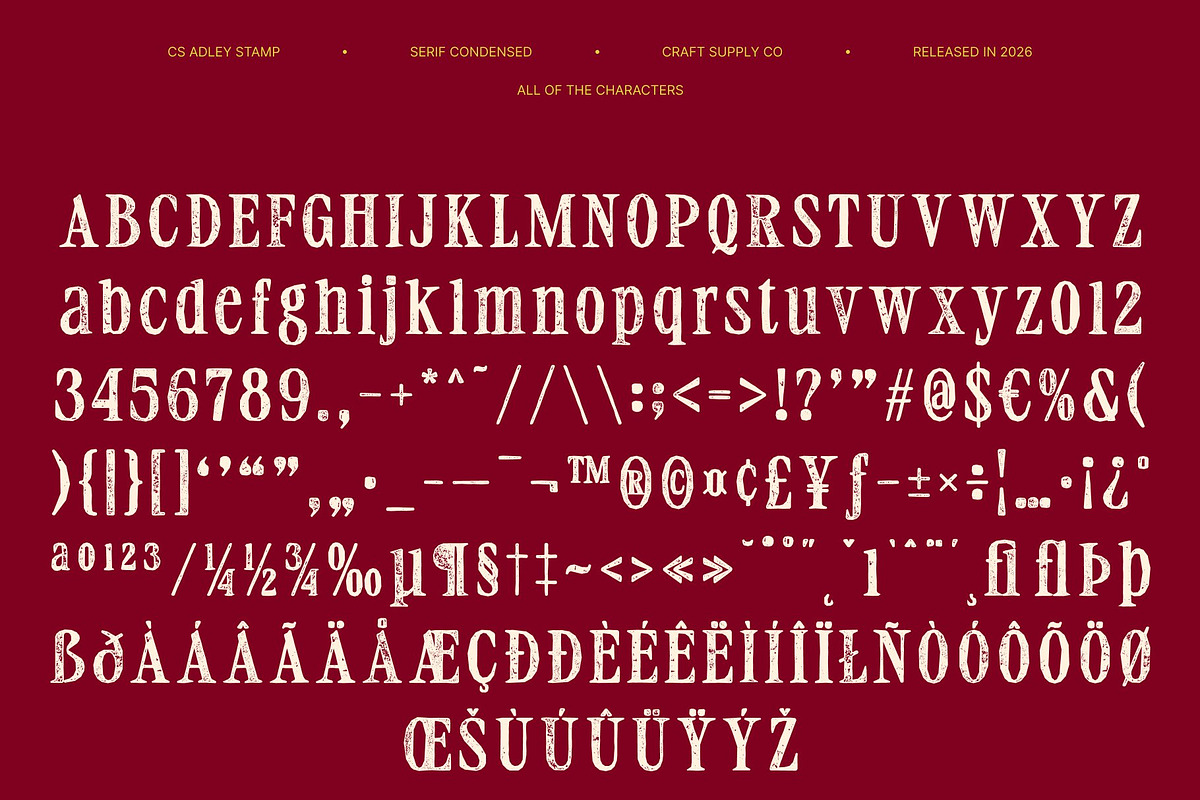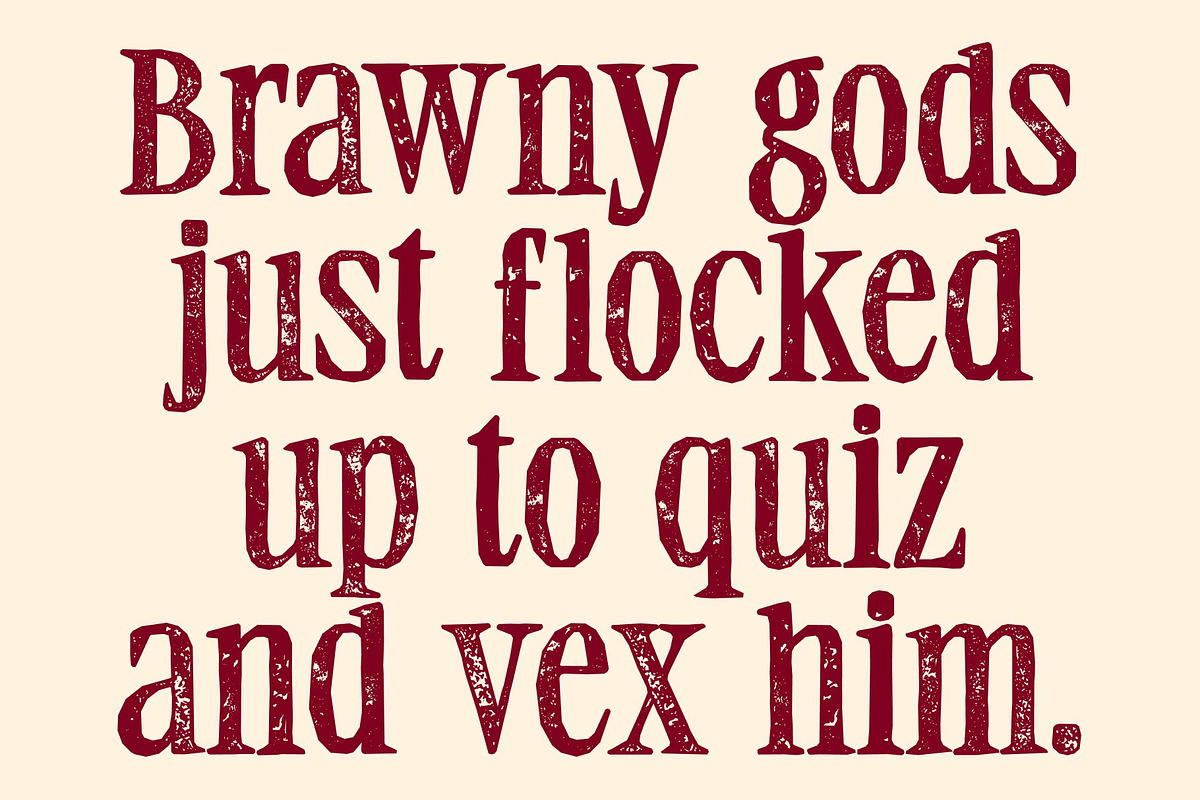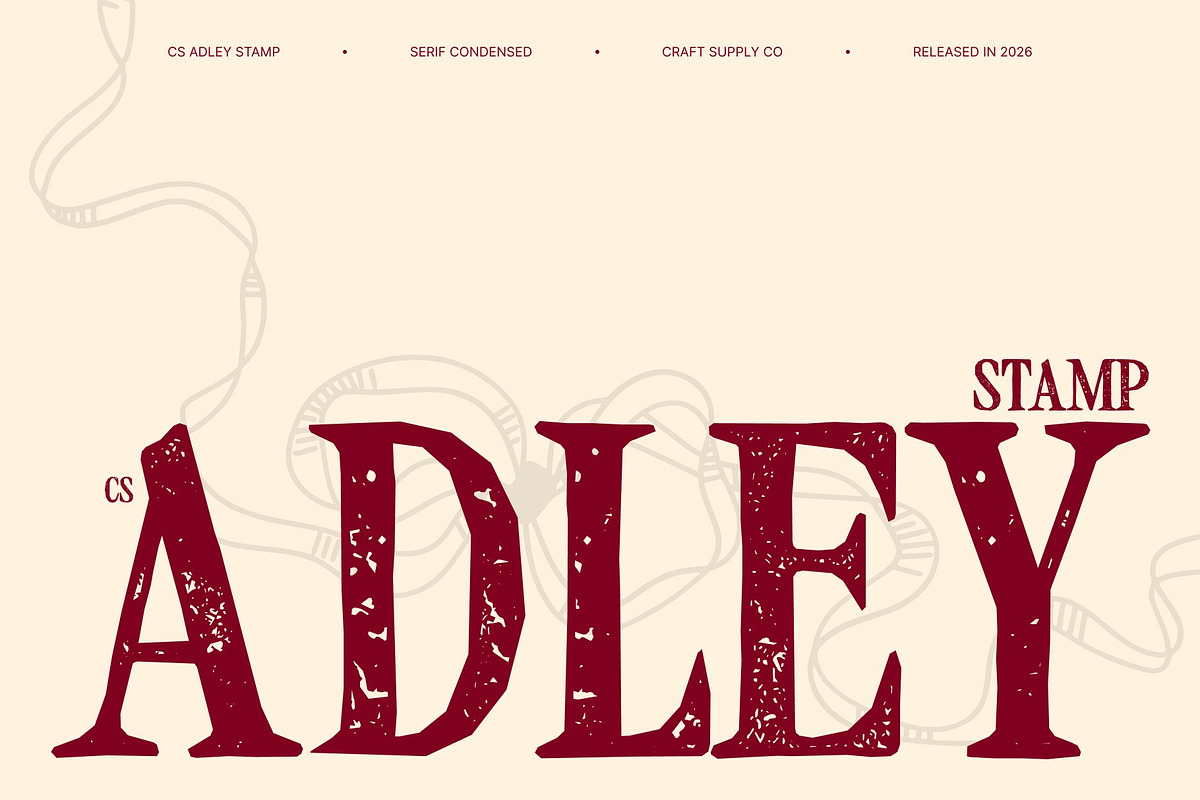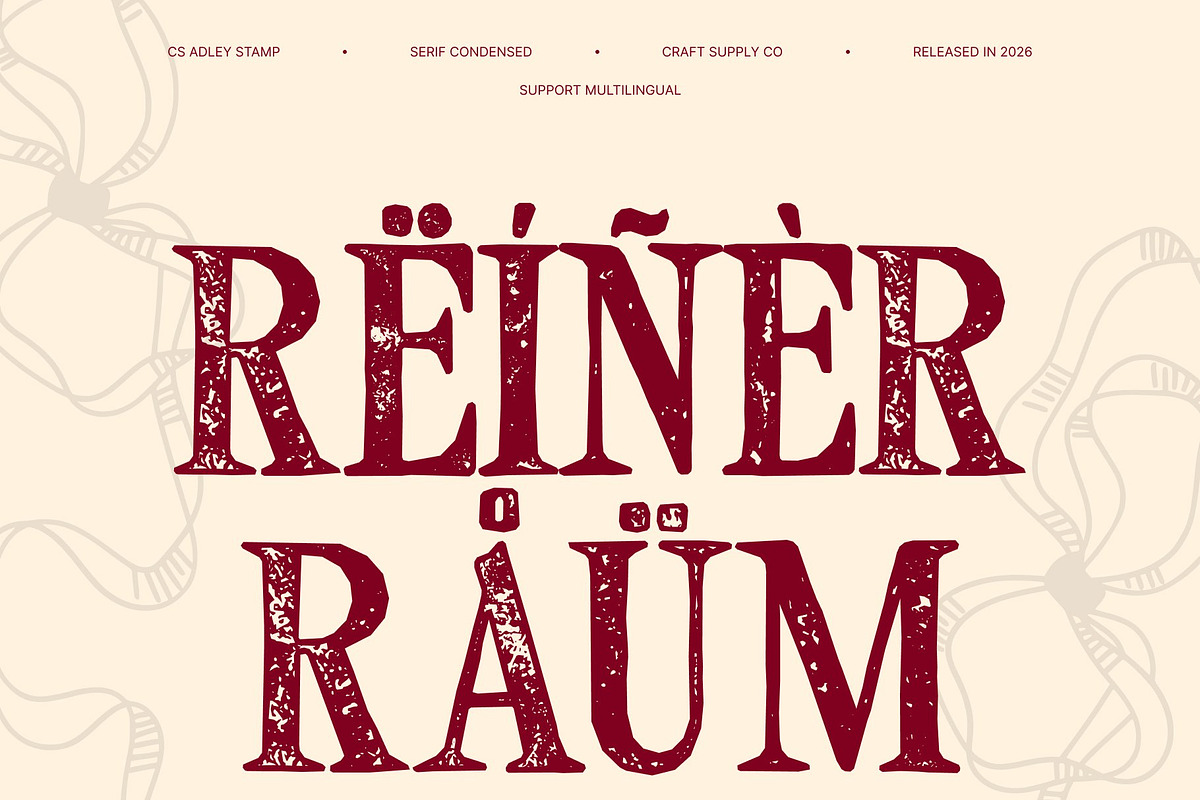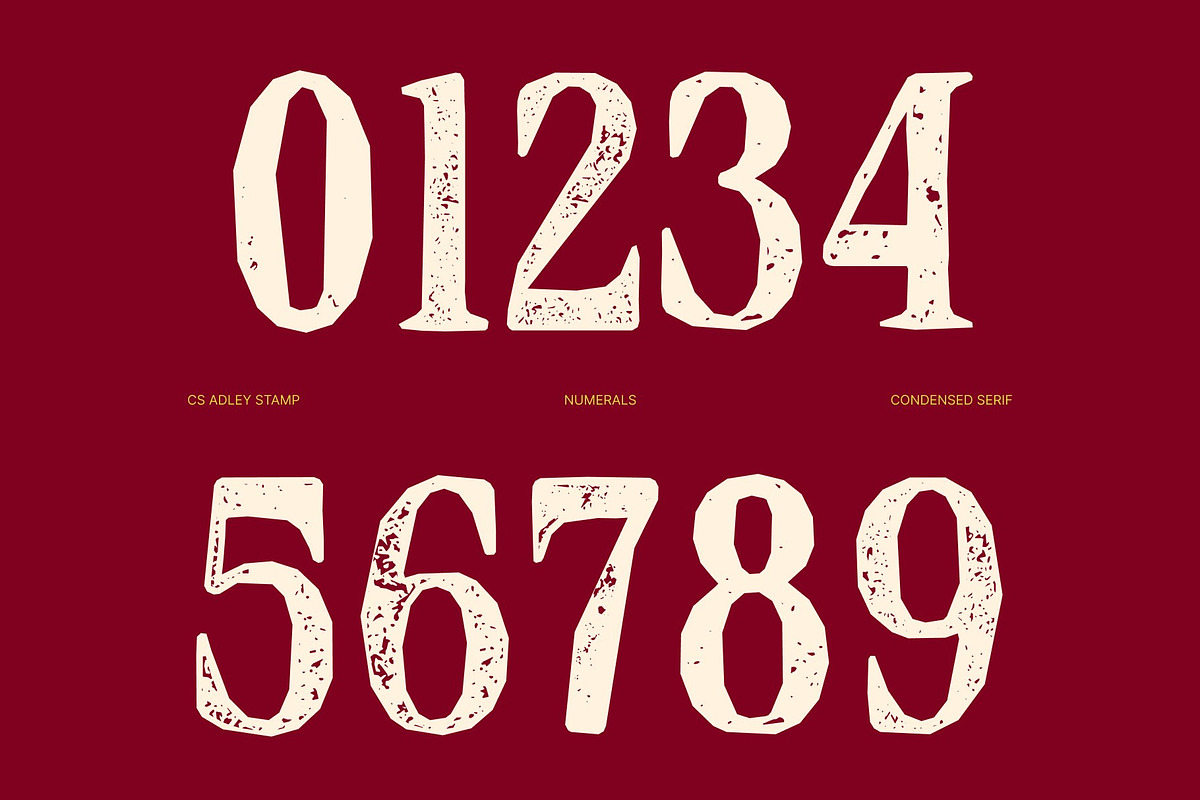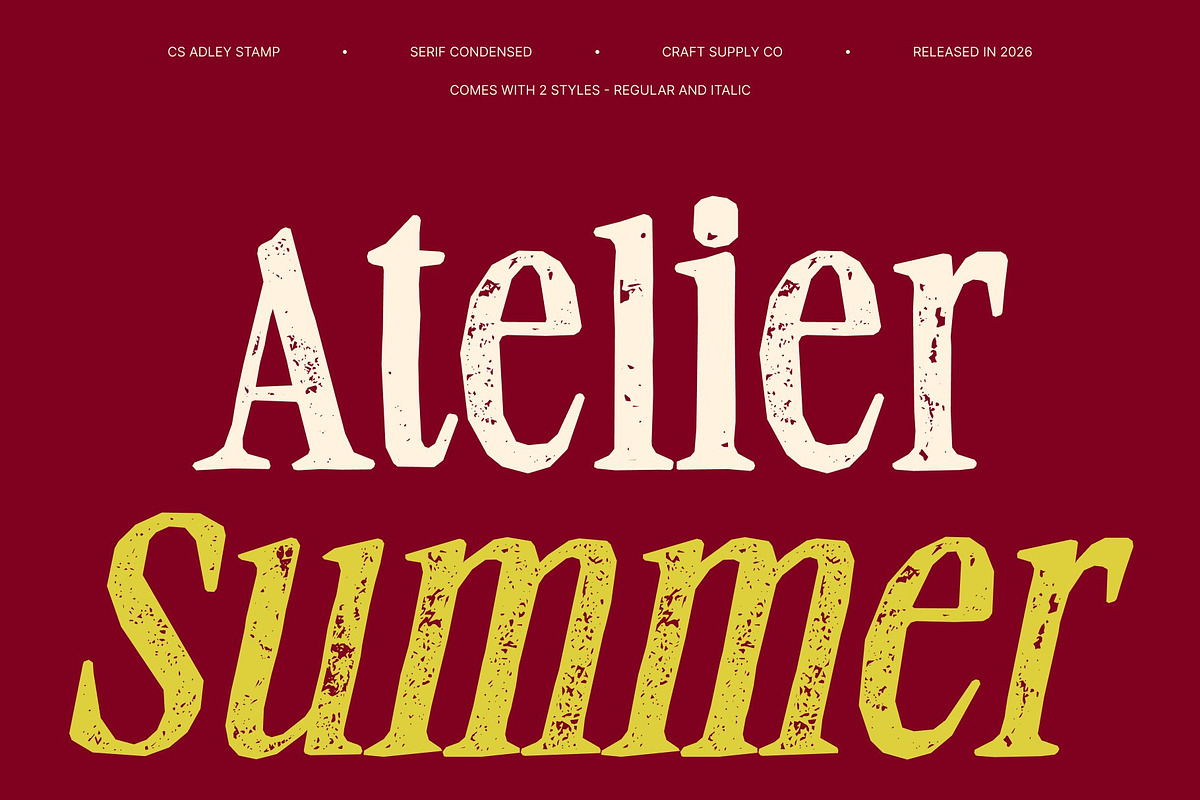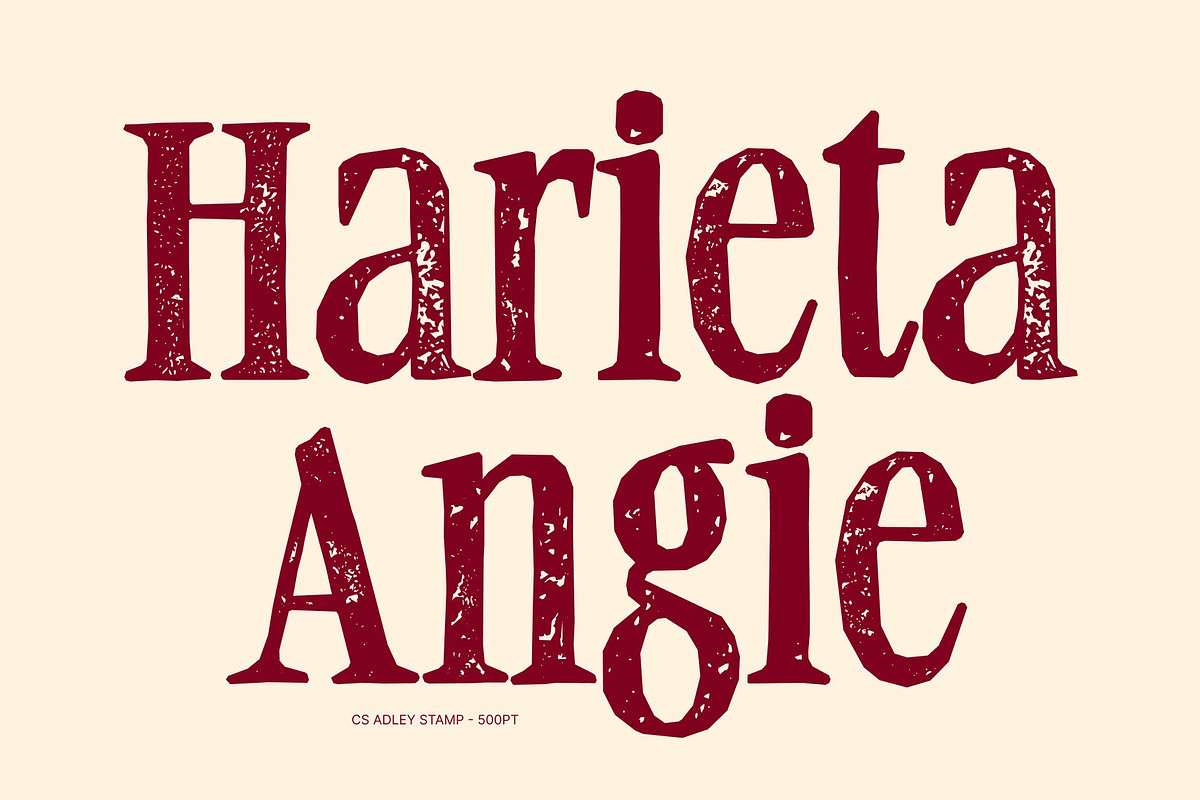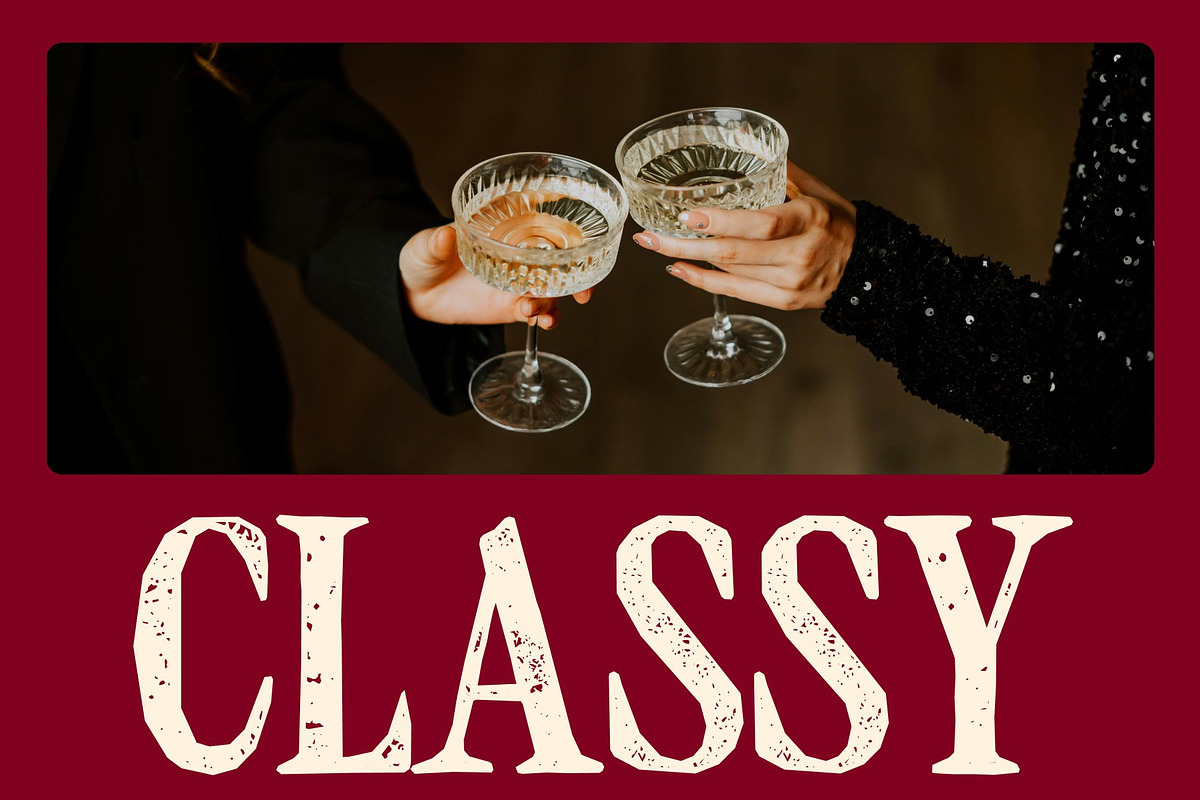
CS Adley Stamp
CS Adley Stamp – Elegant Serif with Timeless Vintage Sophistication Elegant Serif with a Refined Stamp Character This is a sophisticated serif font that blends classic elegance with a distinctive stamp effect. Built on refined serif foundations with elongated details and balanced proportions, this typeface is enhanced by a subtle textured finish that brings vintage character and artistic warmth.
Refined Proportions with Artistic Texture The carefully crafted letterforms of maintain clarity and grace while the stamped texture introduces a slightly worn, handcrafted feel. This artistic imperfection adds depth and personality, evoking an old-world charm without losing its polished appearance. The balance between clean structure and textured detail makes the font visually rich and engaging.
Vintage Luxury for High-End Design Applications Designed for premium branding, fashion editorials, upscale packaging, and boutique visuals, this font delivers an aura of exclusivity with a nostalgic touch. Its high contrast strokes and elegant serifs combined with the stamp effect create a sense of heritage, craftsmanship, and refined taste perfect for designs that value authenticity and prestige.
Perfect for Branding, Editorial, and Classic-Inspired Projects Versatile across print and digital media, this font works beautifully in logos, headlines, advertising campaigns, and editorial layouts. It complements both modern and classic compositions, offering a professional yet artistic appearance. This font is ideal for designers seeking a serif typeface that merges elegance, vintage texture, and timeless sophistication in one cohesive design.